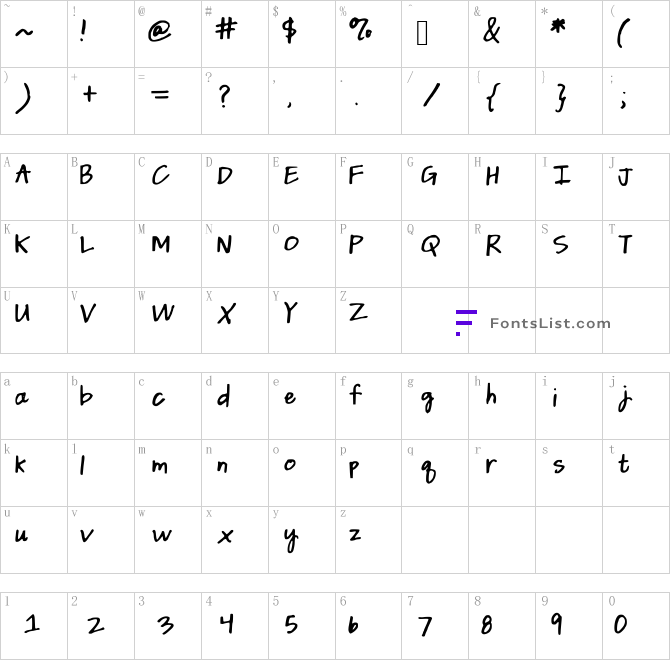
- Font Name:DaintyDaisies
DaintyDaisies.ttf is a very beautiful artistic font, DaintyDaisies.ttf is widely used in the design and printing of various books and pictures,DaintyDaisies.ttf has a strong visual impact,DaintyDaisies.ttf is a commonly used font in newspapers, magazines and books, and is used in posters, e-commerce Poster design, store design, logo design, font design and other fields.DaintyDaisies.